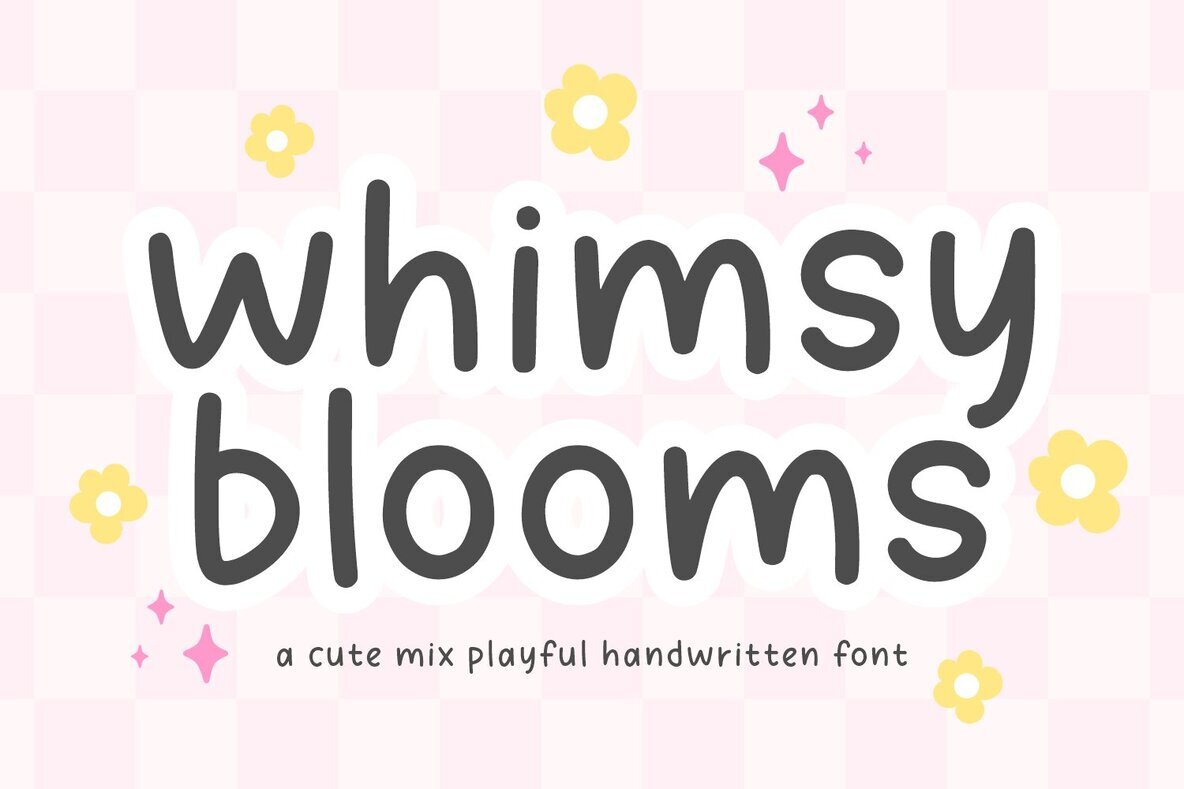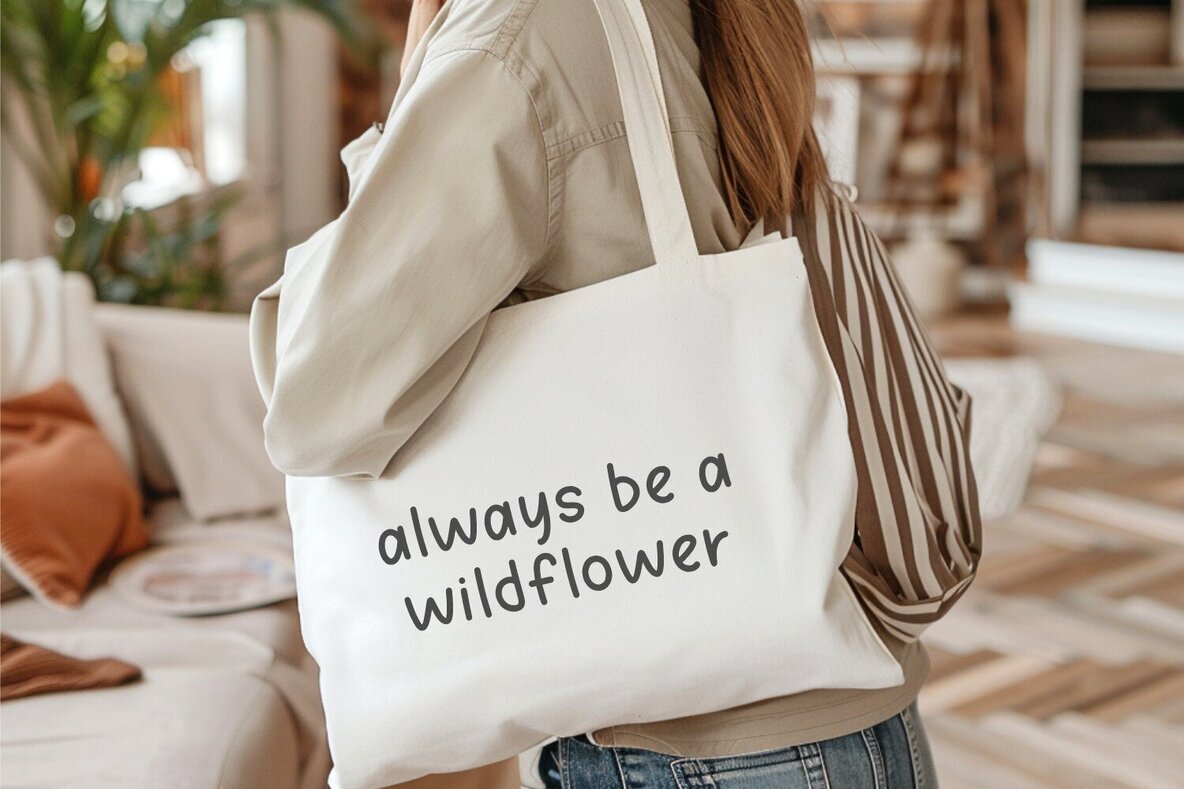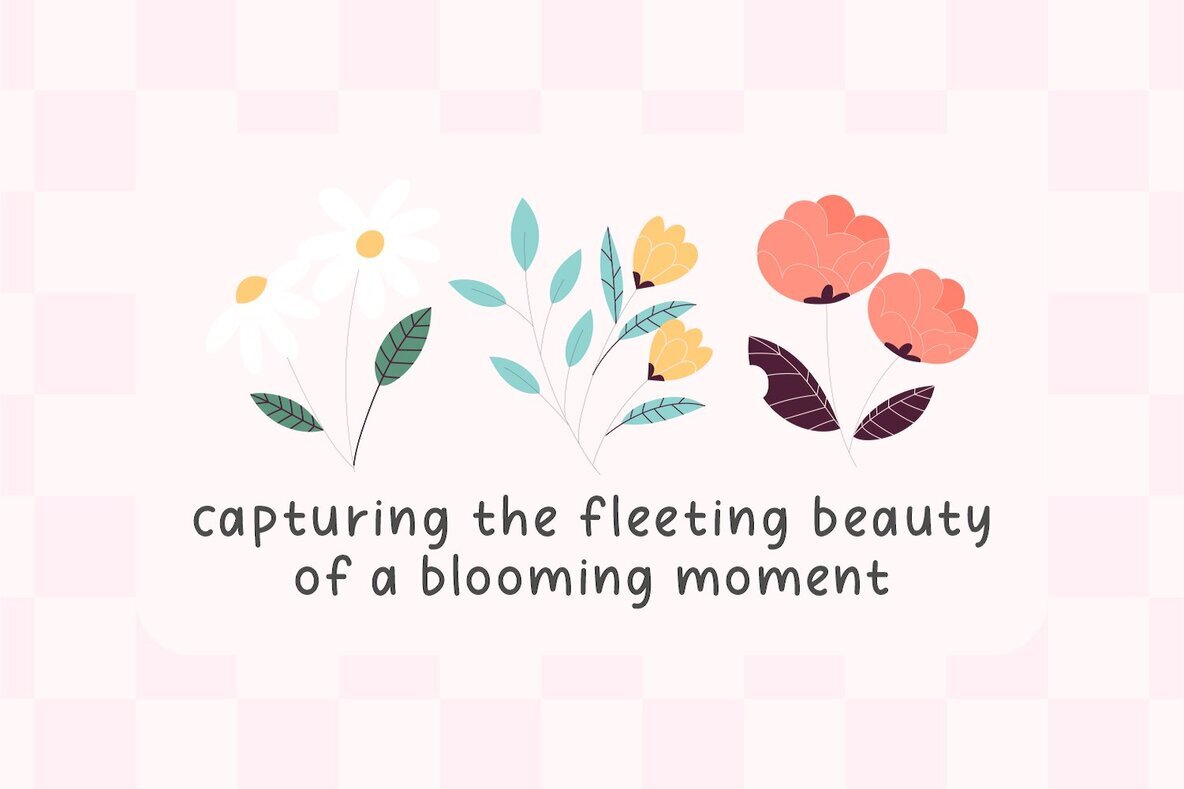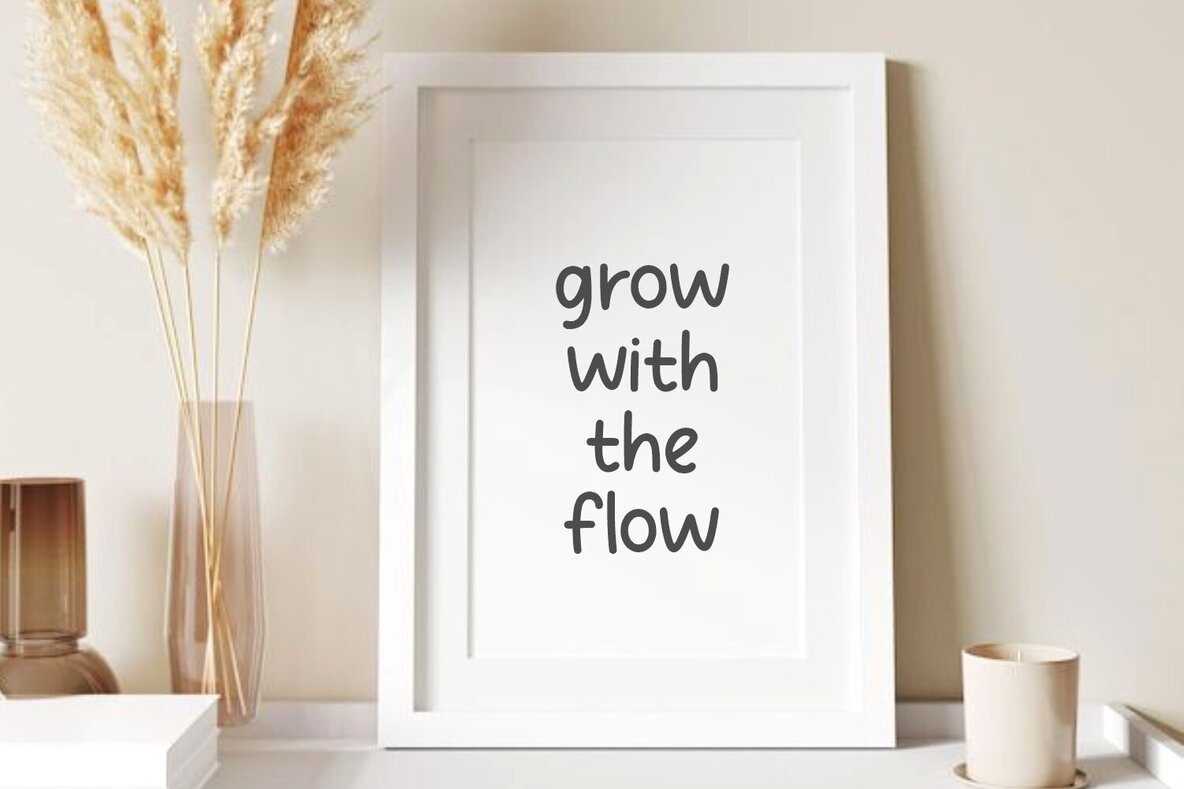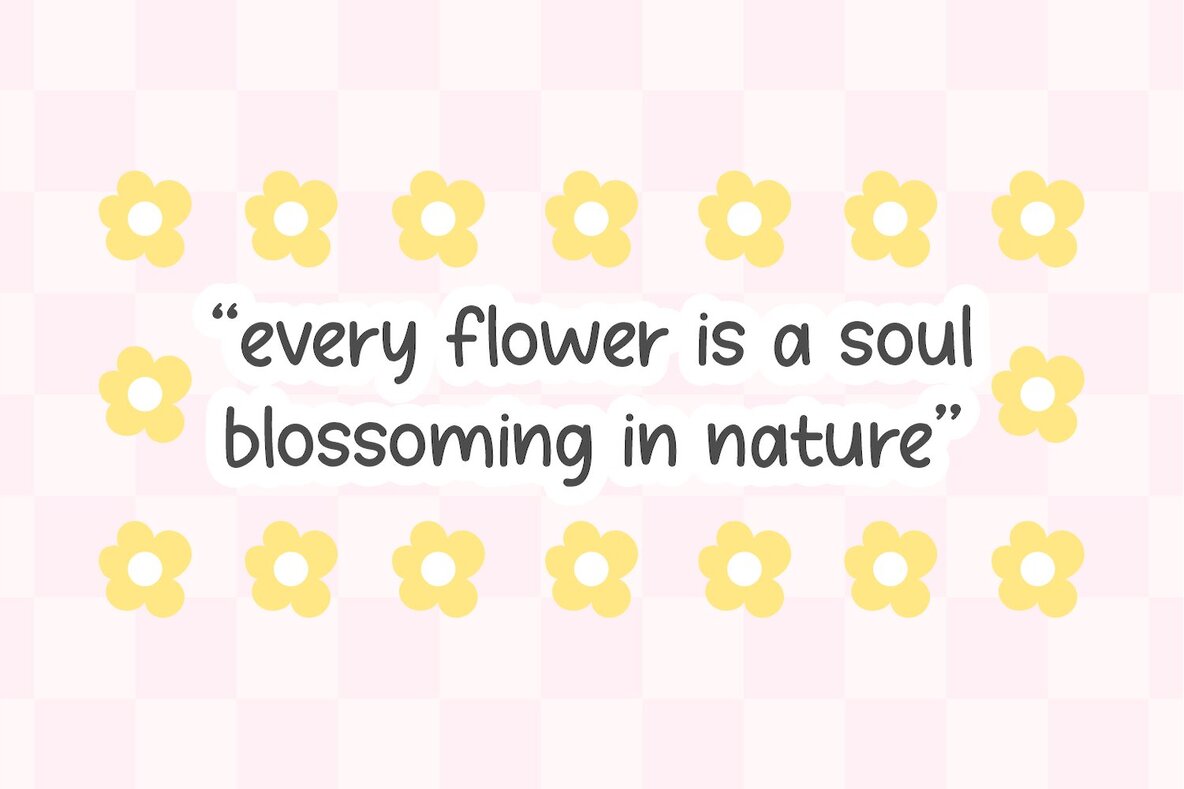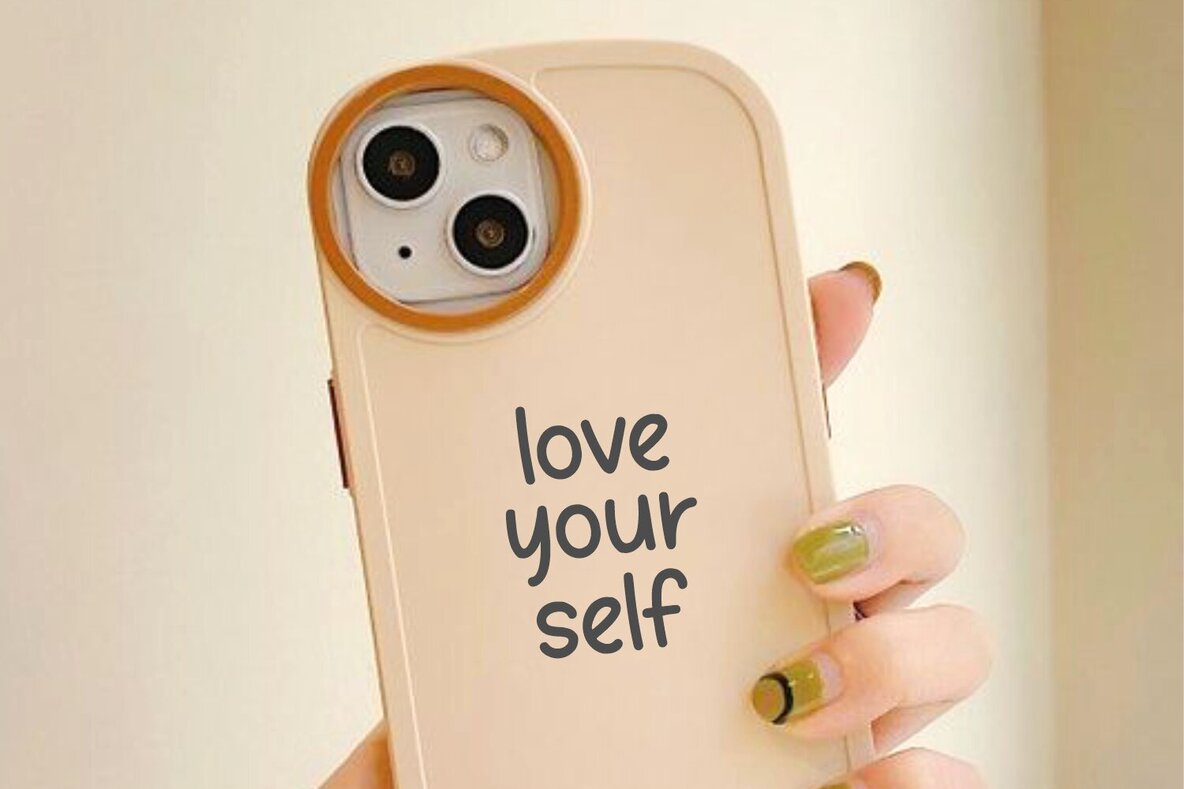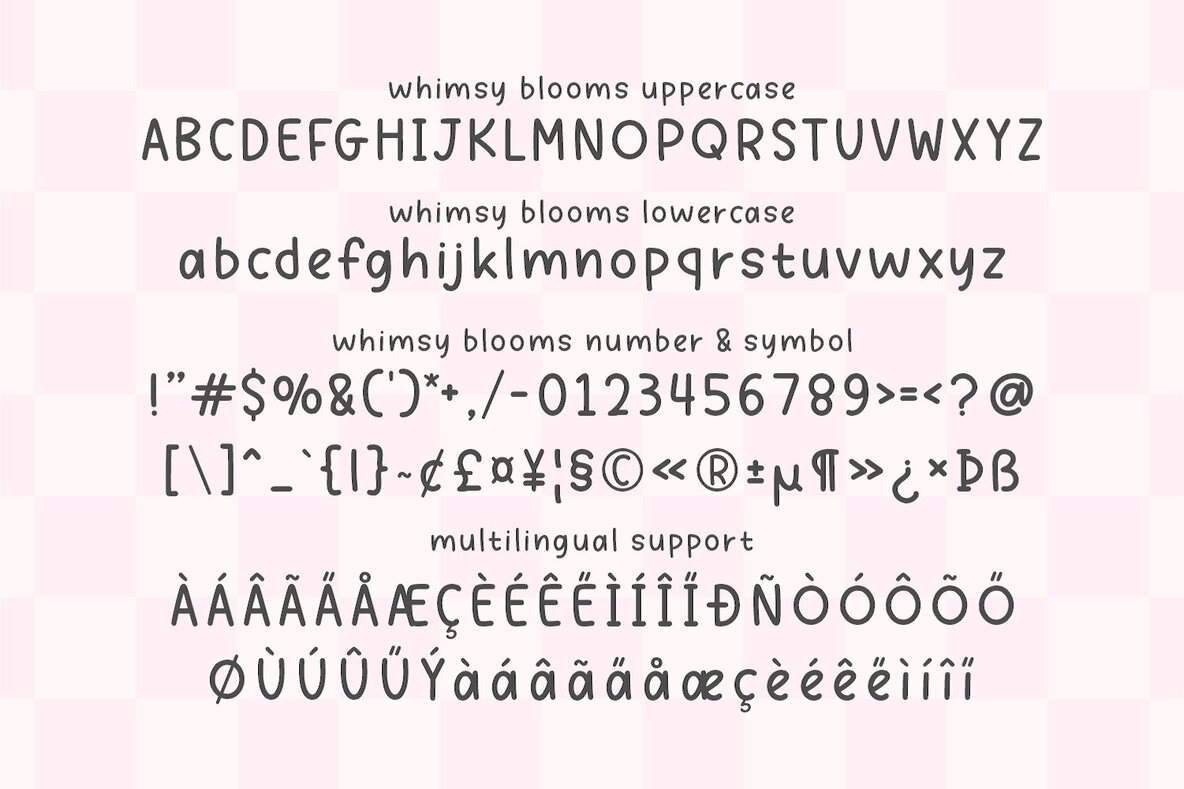
Whimsy Blooms Font
Whimsy Blooms
Whimsy Blooms is a delightfully charming handwritten font that brings a sense of bliss and joy to every design. With its lively strokes and fanciful curves, this font evokes the cheerful feeling of collecting wildflowers on a sunny day. It’s perfect for adding an enthusiastic touch to tote bags, phone cases, greeting cards, and posters. Additionally, Whimsy Blooms is ideal for children’s books, where its warm and happy vibe shines through to captivate young readers.Whimsy Blooms